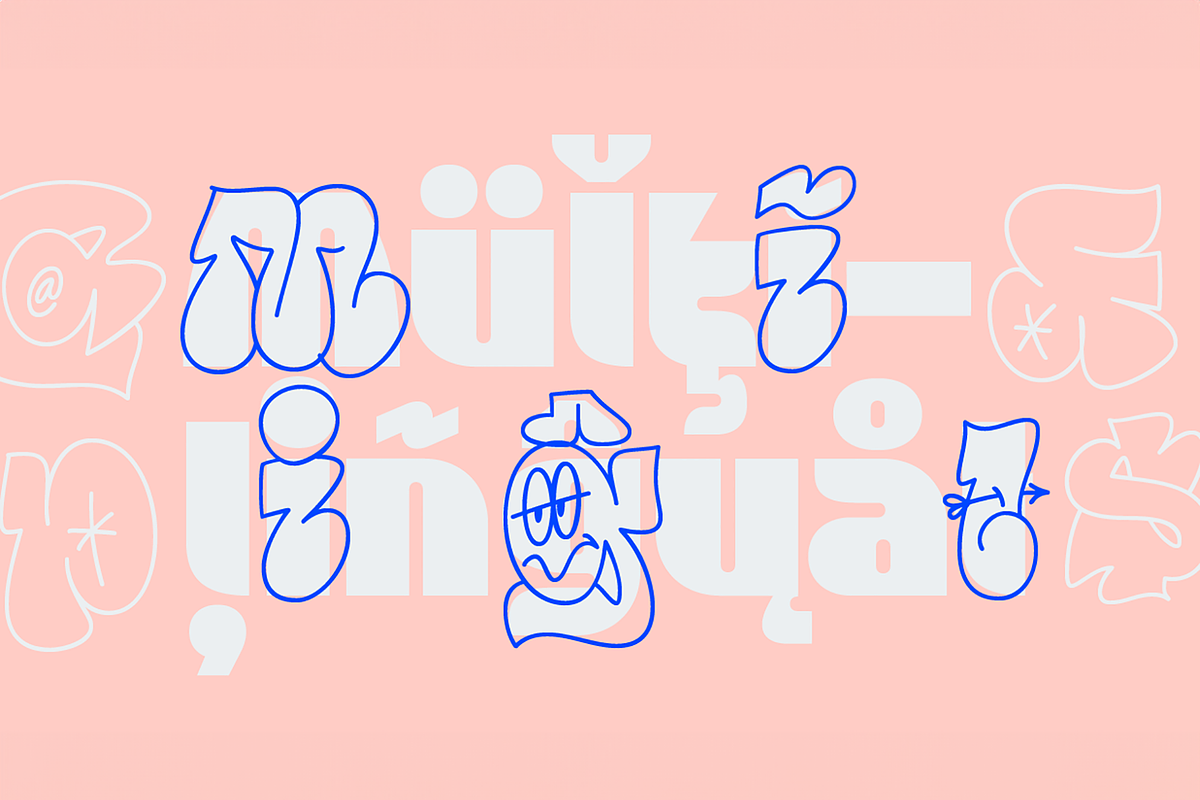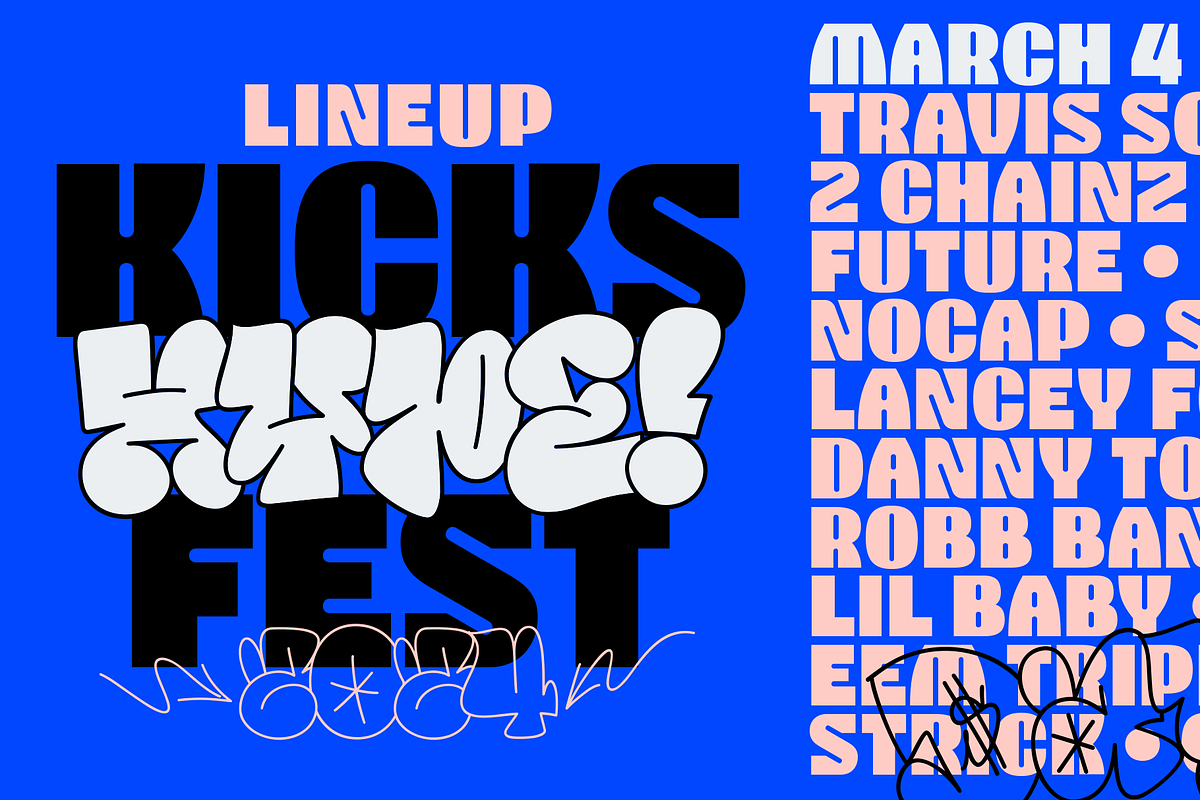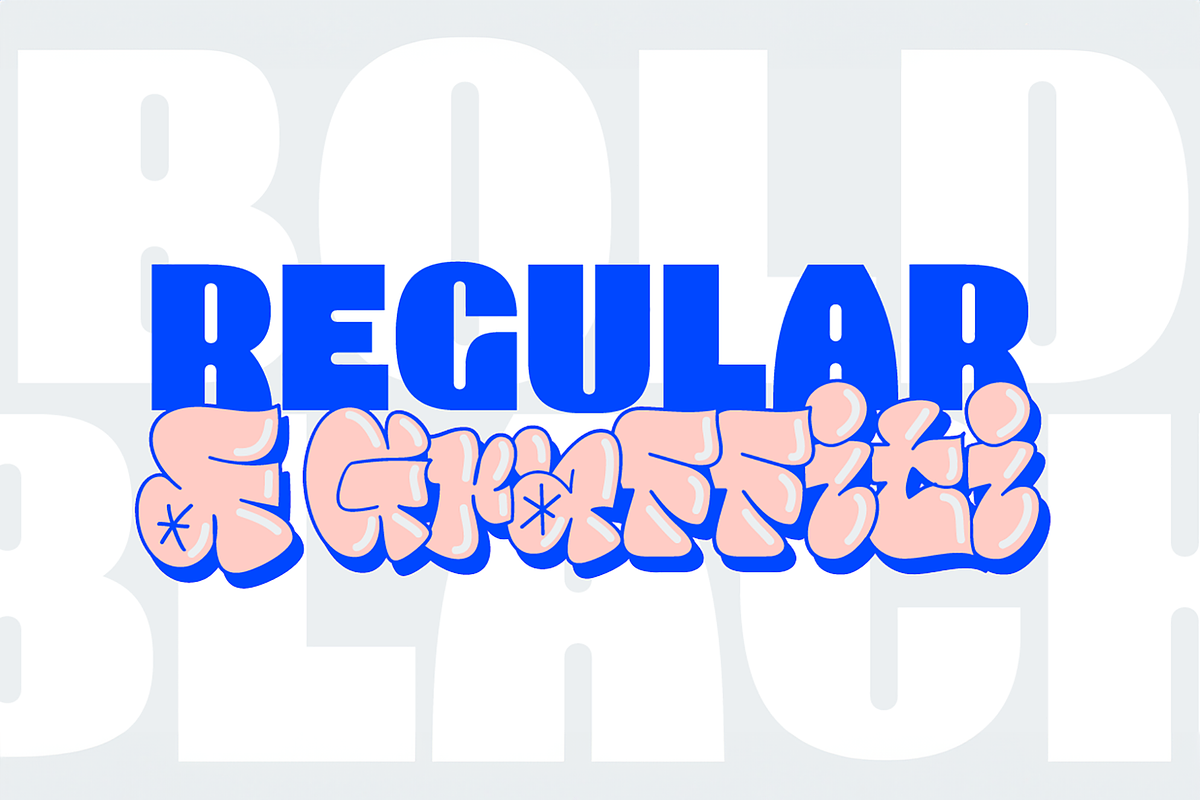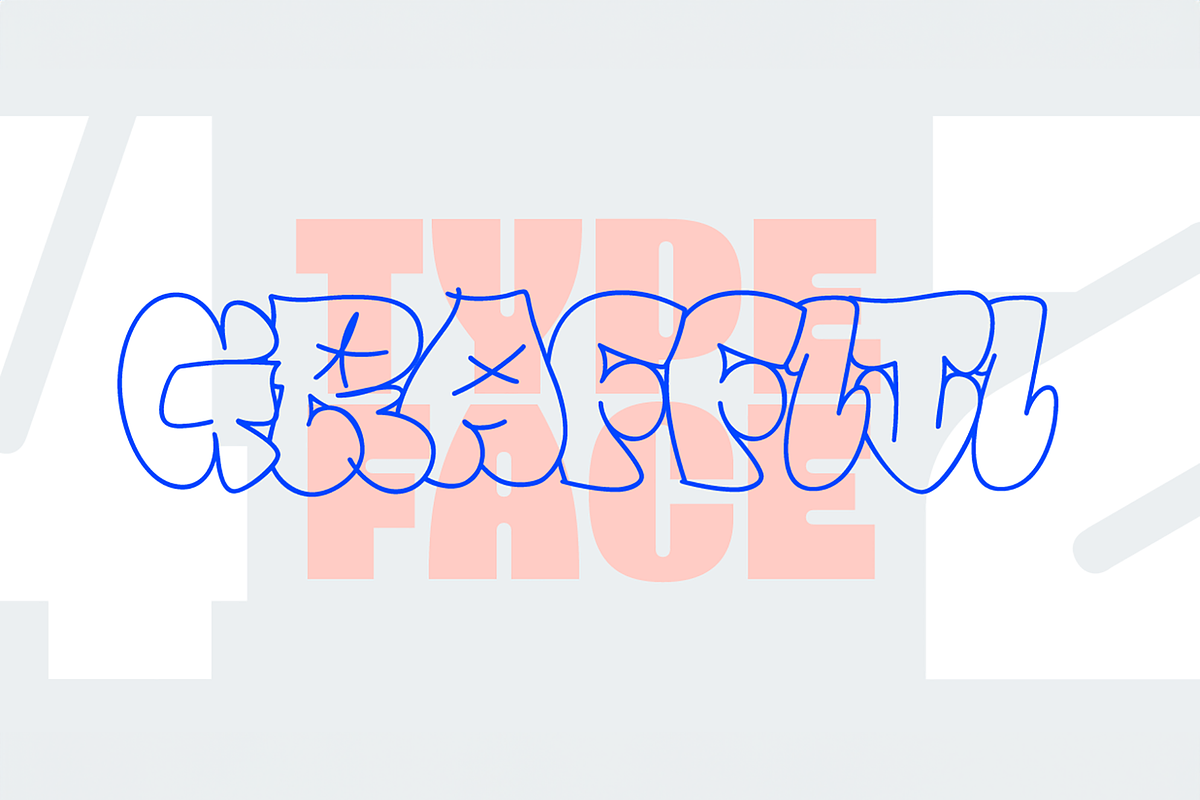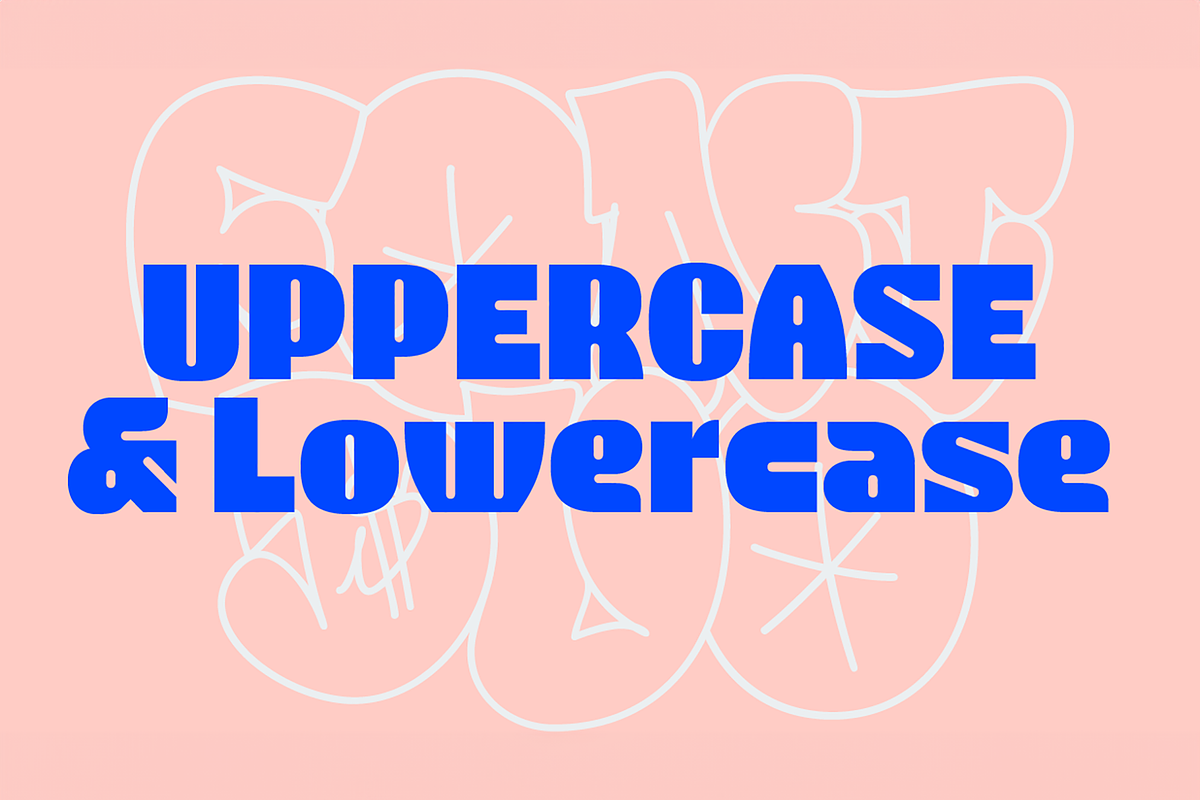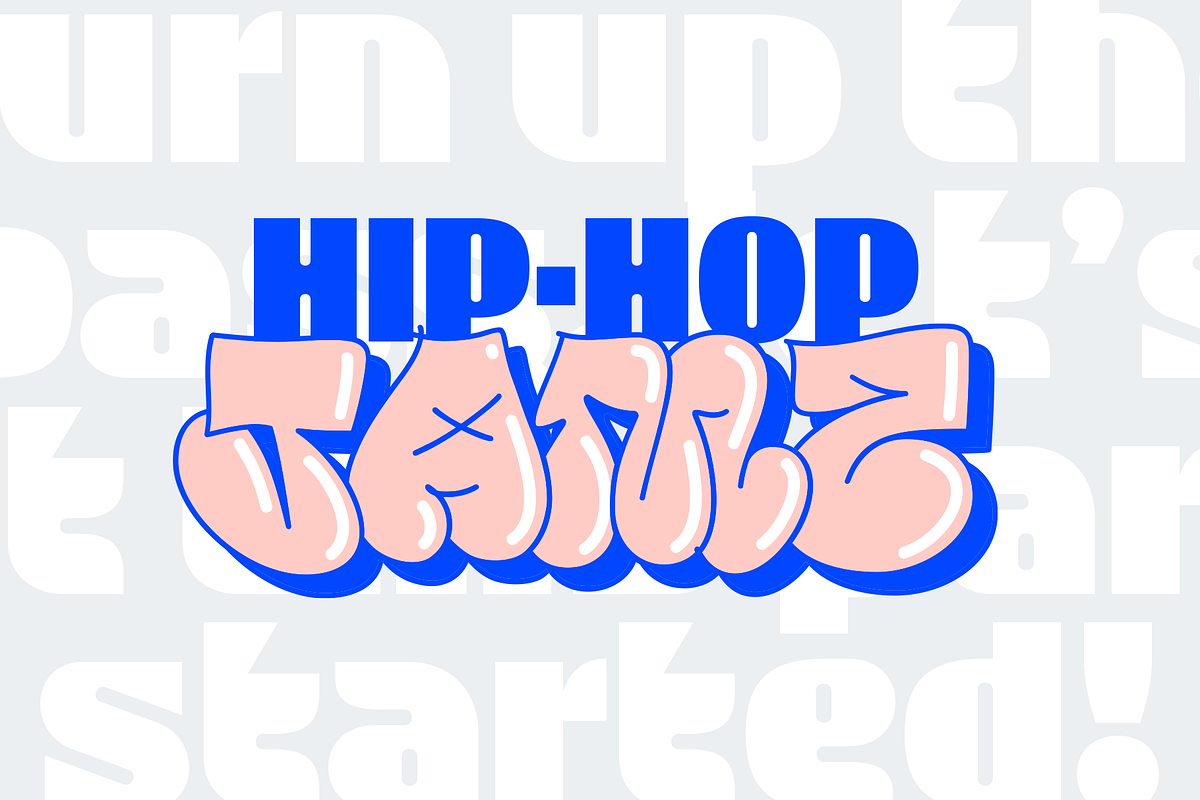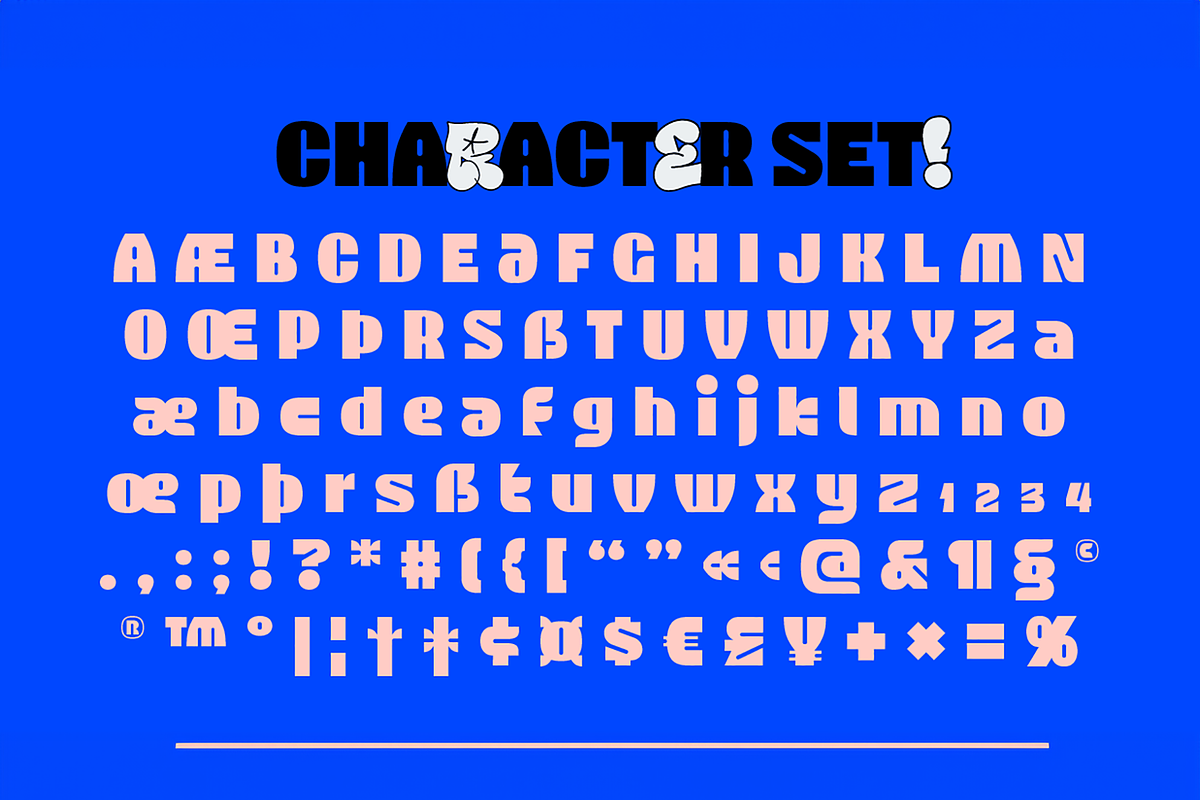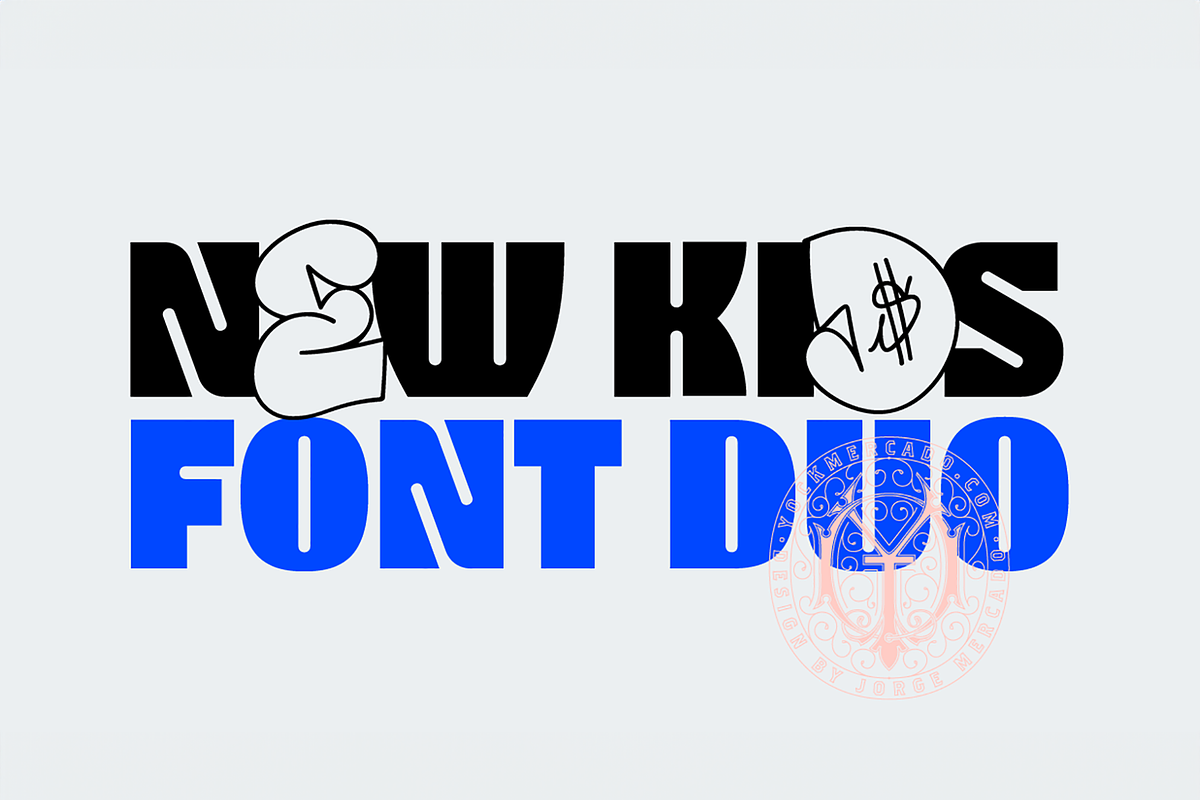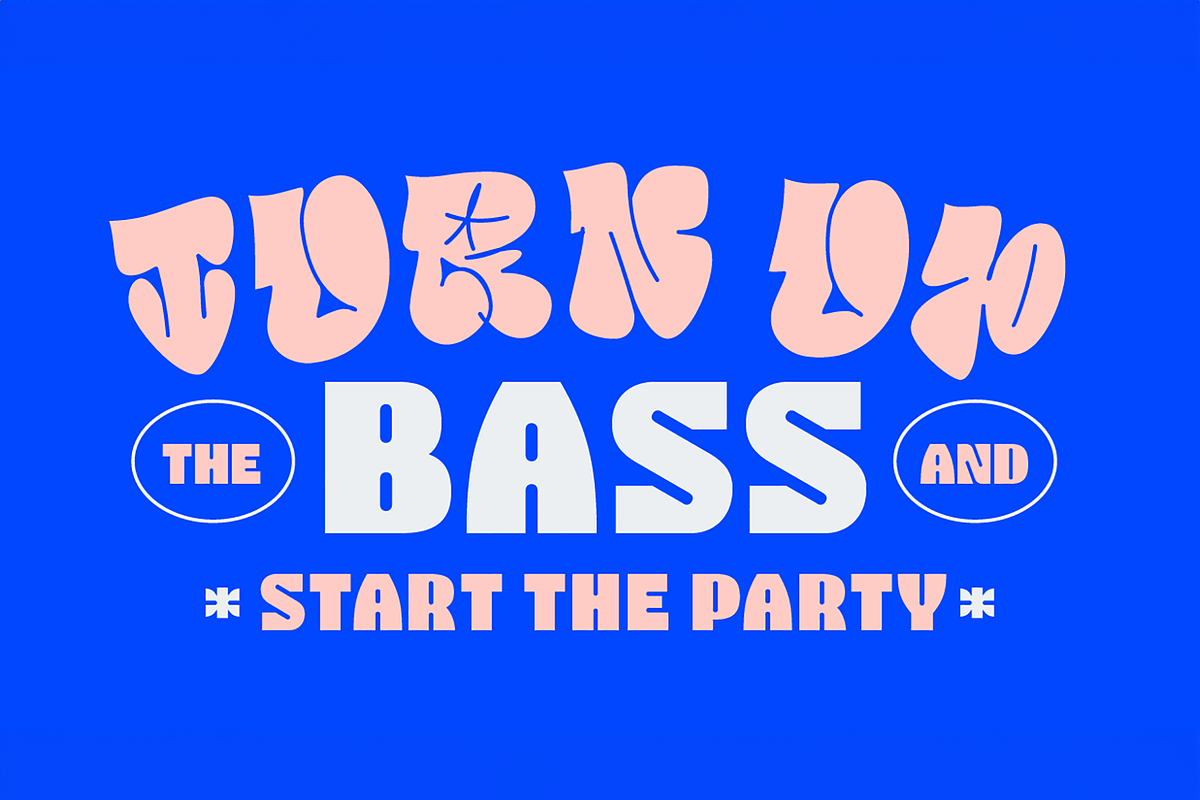
New Kids Font Duo
New Kids is a font duo that reflect the duality between the rebelliousness of graffiti and the boldness of a sans serif design. With a style that emulates the spontaneity of street art, it is perfect for projects that seek to resonate with urban and youth culture. Its bold counterpart, solid and powerful, provides a commanding visual presence, ideal for capturing attention in advertising and social content. This versatile font is a statement of modernity and audacity in the world of graphic design.